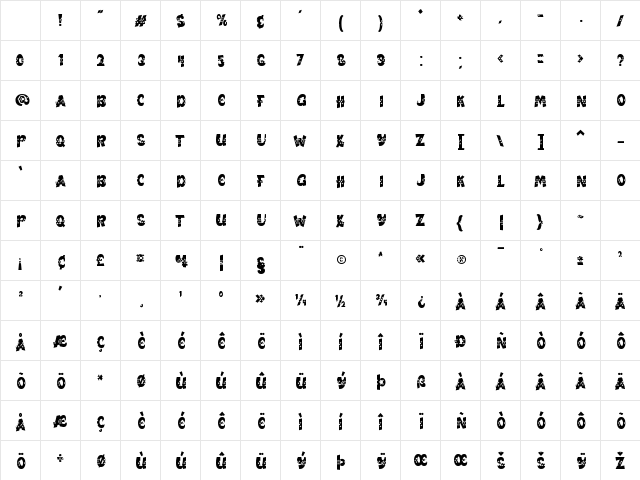
Complete Bogies Bird Stars glyph index. Displaying only characters natively supported by Bogies Bird Stars font.
Bogies Bird is a composed and adaptable typeface that performs quietly and consistently across a wide range of design contexts.